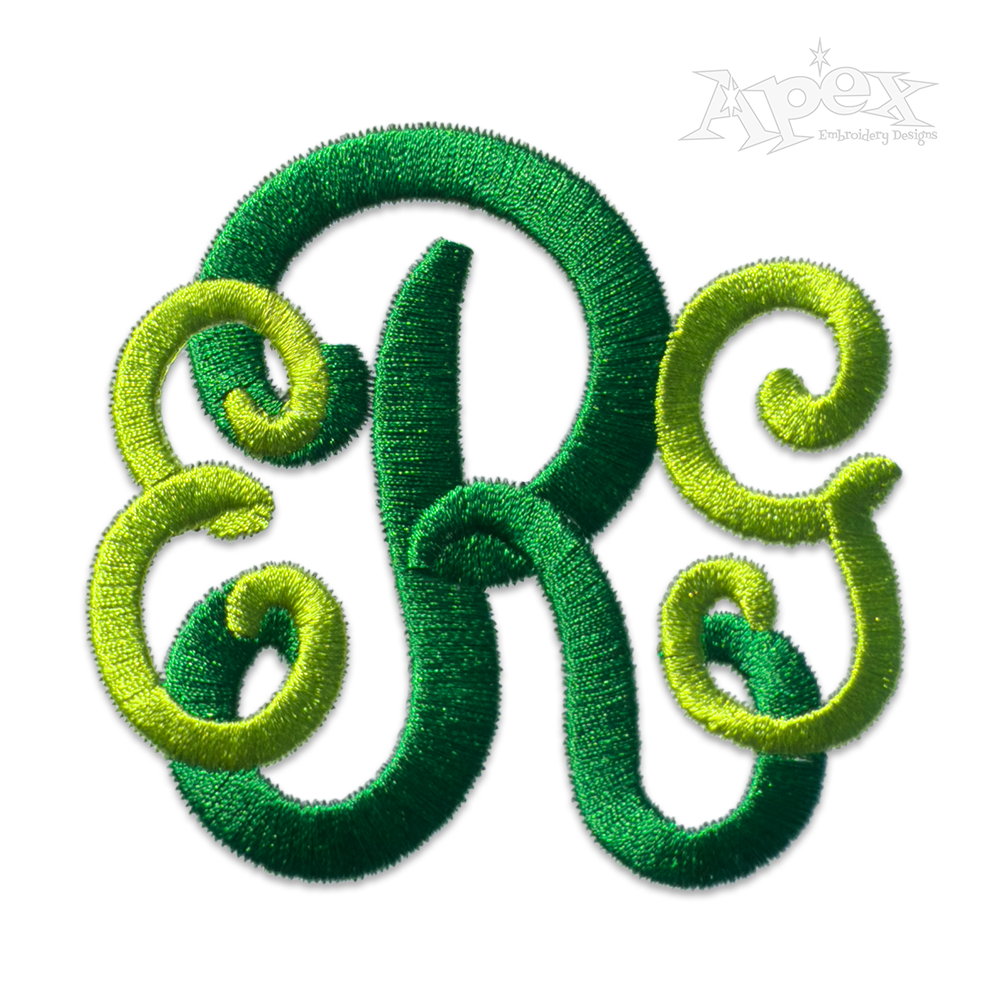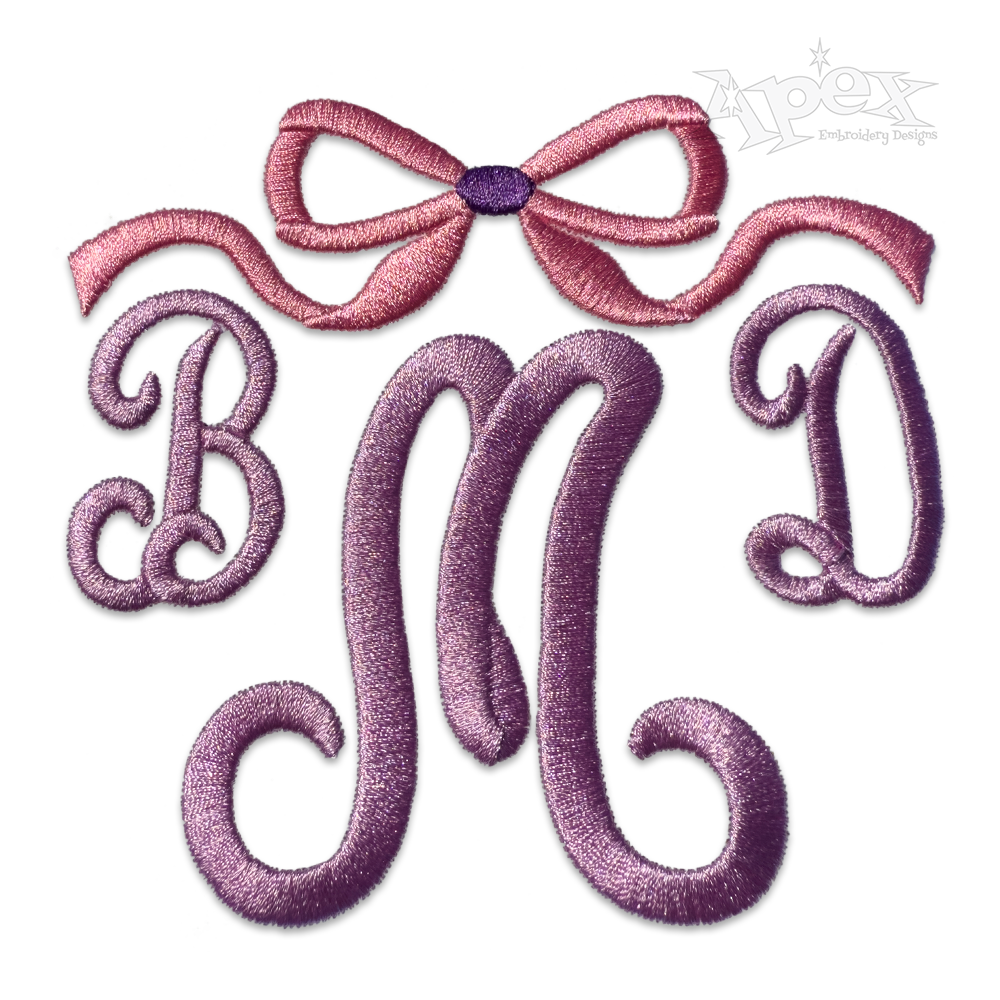
Classic Curlz Monogram Machine Embroidery Font
Create elegant personalized lettering with this Classic Curlz Monogram Machine Embroidery Font. This embroidery font features decorative curled letters with a smooth satin stitch look, making it perfect for classic monograms, initials, and personalized embroidery projects.
This font set includes separate Left, Middle, and Right letters, allowing you to create balanced three-letter monograms. The curled letter style gives each monogram a timeless, decorative, and polished look for custom sewing and embroidery projects.
Design Features:
- Classic monogram embroidery font
- Curlz style decorative lettering
- Left, Middle, and Right letter sets included
- Great for three-letter monograms
- Smooth satin stitch embroidery look
This Classic Curlz Monogram embroidery font is ideal for creating elegant, personalized machine embroidery projects with decorative curled lettering and a classic monogram style.